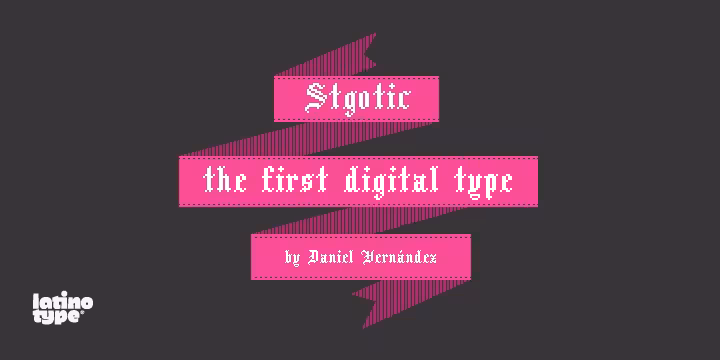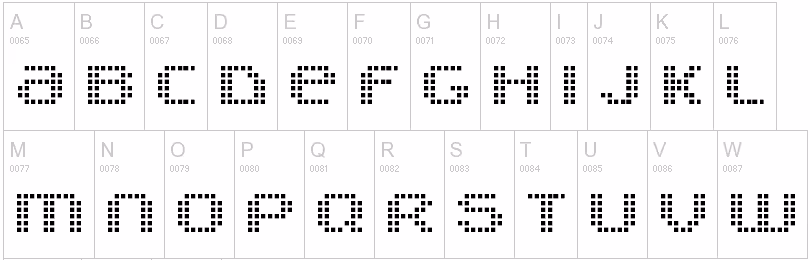
Pixel fonts represent an interesting era of type design. They were born out of necessity when low-res displays were the only ones around, and have now become a highly niche style of retro nostalgia.
In that vintage spirit, I’d like to welcome you to this list of 11 surprisingly good pixelated typefaces. There were picked out for their visual interest, peculiarity and/or general out-dated awesomeness. Check them out and then let us know your favorites in the comments below!
Arcade
Arcade looks like it came straight out of an ’80s game, and the author’s username (Pizzadude) reminds me of the Teenage Mutant Ninja Turtles.
Visitor
This typeface is the perfect example of a bitmap font. It’s simple, legible and overtly retro.
SuperScript
SuperScript is a fluid, script typeface build out of pixels.
V5 Prophit Cell
V5 Prophit Cell has a techno feel to it, and is exclusively lowercase, with a grid structure like Arcade.
Pixel Cowboy
This font comes with a free bucket of bullets! It feels so western.
Stgotic
Stgotic is a pixelated black letter typeface designed for low resolution screen devices. It truly blew my mind when I first saw it, as it’s hard to believe that the complexities of black letter type could be recreated in such a simple form.
Technicality
Technicality is particularly hard-edged, even in the world of pixel type. I really like the pitchfork-like capital “Y” and the expressive lowercase “f.”
Apple ][
This font is based on of the original Apple ][ font.
Retro Rescue
The name Retro Rescue suits this font well, because of the way the diagonals trail off.
Handy
Handy is a hand-drawn styled pixel font with real pixel ligatures? It’s certainly peculiar, but has a nice charm to it as well.
Hellovetica
From the creator of Handy, Hellovetica is an attempt to convert much of Helvetica’s complexities into a small grid, while retaining its general form factor.